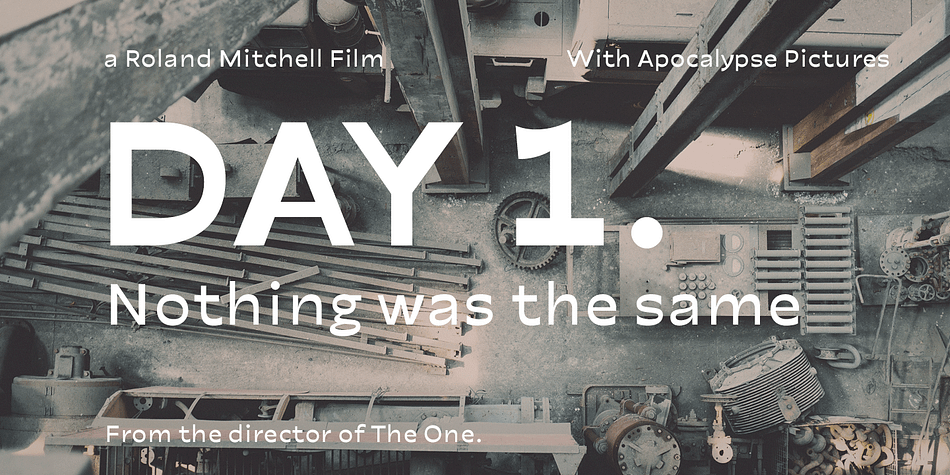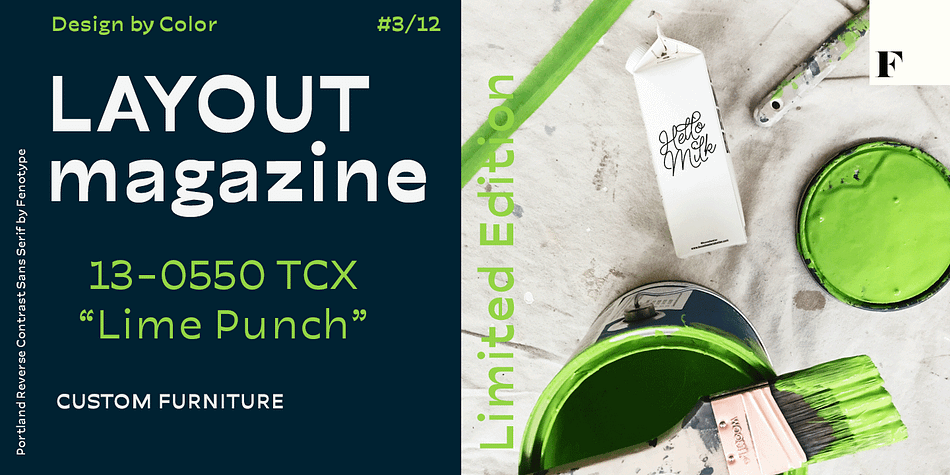
Portland
Designed by Erik Bertell, Emil Bertell and Teo Tuominen, Portland is a display sans and sans serif font family. This typeface has four styles and was published by Fenotype.
Made you look? There’s a peculiar feel to the letters – achieved by the reversed contrast. Perfectly legible yet there’s something about the characters that makes them stand out. As Viktor Shklovsky once coined, ”Habitualization devours objects” – the everyday world becomes invisible until we are forced to see it otherwise.
The Portland font family is a tool of choice when you want to effortlessly make your designs stand out.
Foundry Fenotype
Styles Display Sans, Sans Serif
Designers Erik Jarl Bertell, Emil Karl Bertell, Teo Tuominen